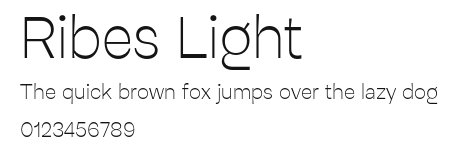
Ribes Light Preview
• Font Name: Ribes Light
• Full Font Name: Ribes Light
• Designer: Luigi Gorlero
• Manufacturer: Collletttivo
About Ribes Light.otf
Ribes Light.otf is a modern, elegant sans-serif font designed for ultimate readability and visual harmony. Perfect for branding, headlines, web design, and print materials.